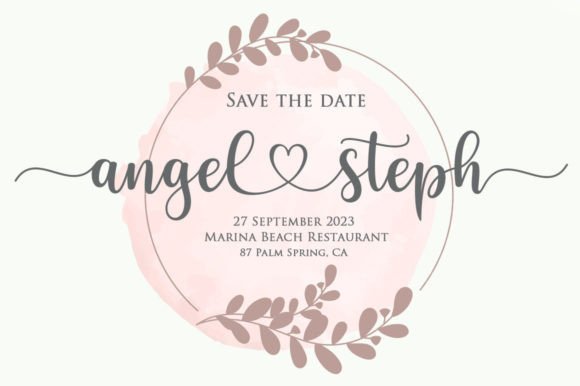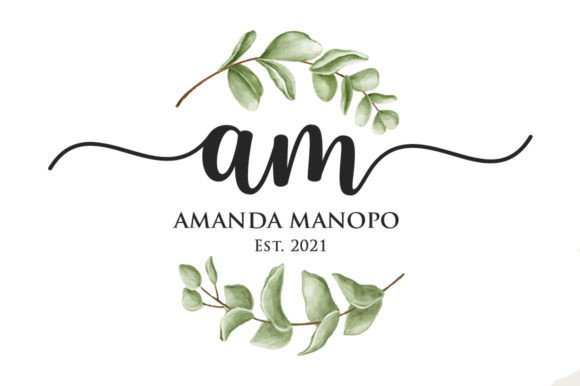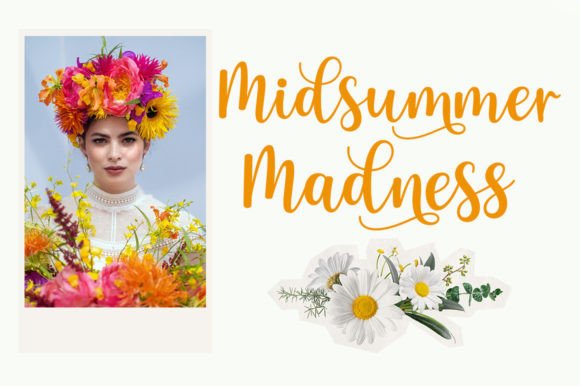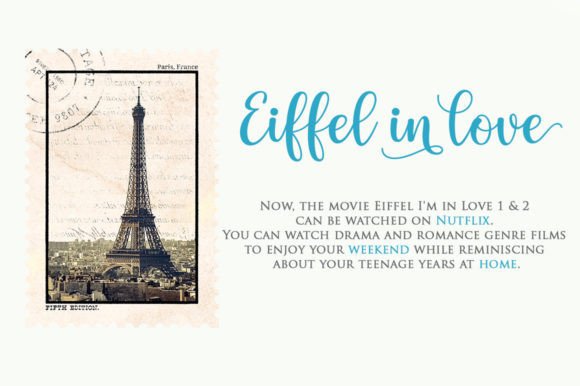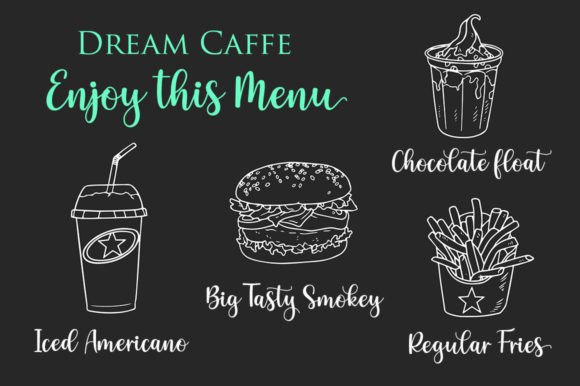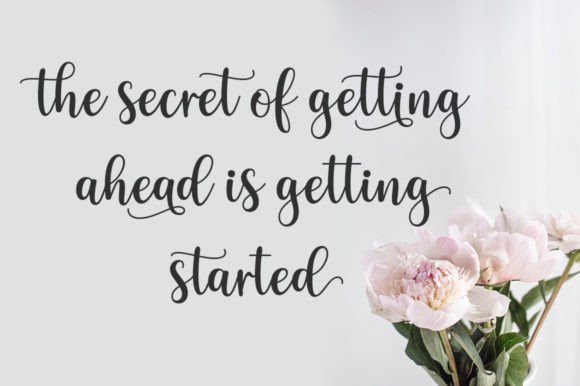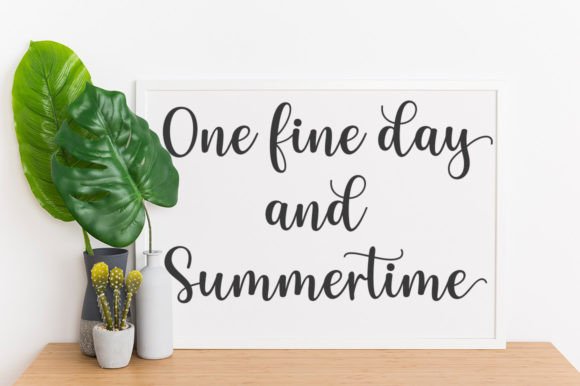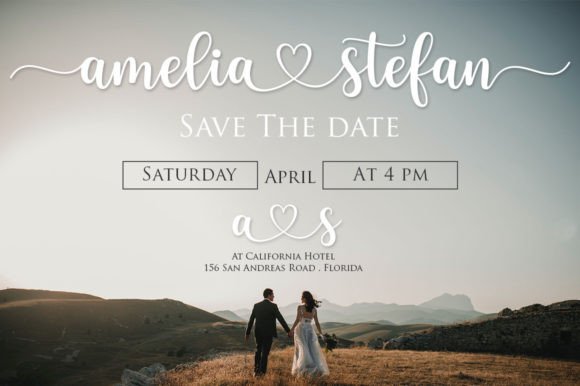
Aishya Font
About Aishya Font
Aishya is a beautiful and refined script font that exudes a classy, elegant, and modern aesthetic. With its sophisticated design, this font is versatile and well-suited for a range of applications, including logos, branding, invitations, stationery, wedding designs, social media posts, and more.
The beauty of Aishya lies in its graceful script style, which adds a touch of sophistication to your projects. Whether you’re working on a brand logo that demands a chic and elegant font or creating wedding invitations that require a modern look, Aishya brings a script typeface that enhances the overall visual appeal.
Its adaptability shines through in various design contexts, making it suitable for both digital and print media. Aishya maintains its refined and elegant look, ensuring readability and aesthetic appeal across different platforms. From digital branding to wedding stationery, the font adds a timeless and modern touch to your creative endeavors.
Aishya’s classy and modern characteristics make it a standout choice for projects that demand a touch of sophistication. Its clean lines and well-balanced characters contribute to a chic and contemporary design language that resonates with diverse audiences.
In summary, Aishya is more than just a font; it’s a design asset that adds beauty and refinement to your creative projects. Let Aishya be the choice that elevates your logos, branding, invitations, and various designs, making them stand out with a classy and elegant flair.